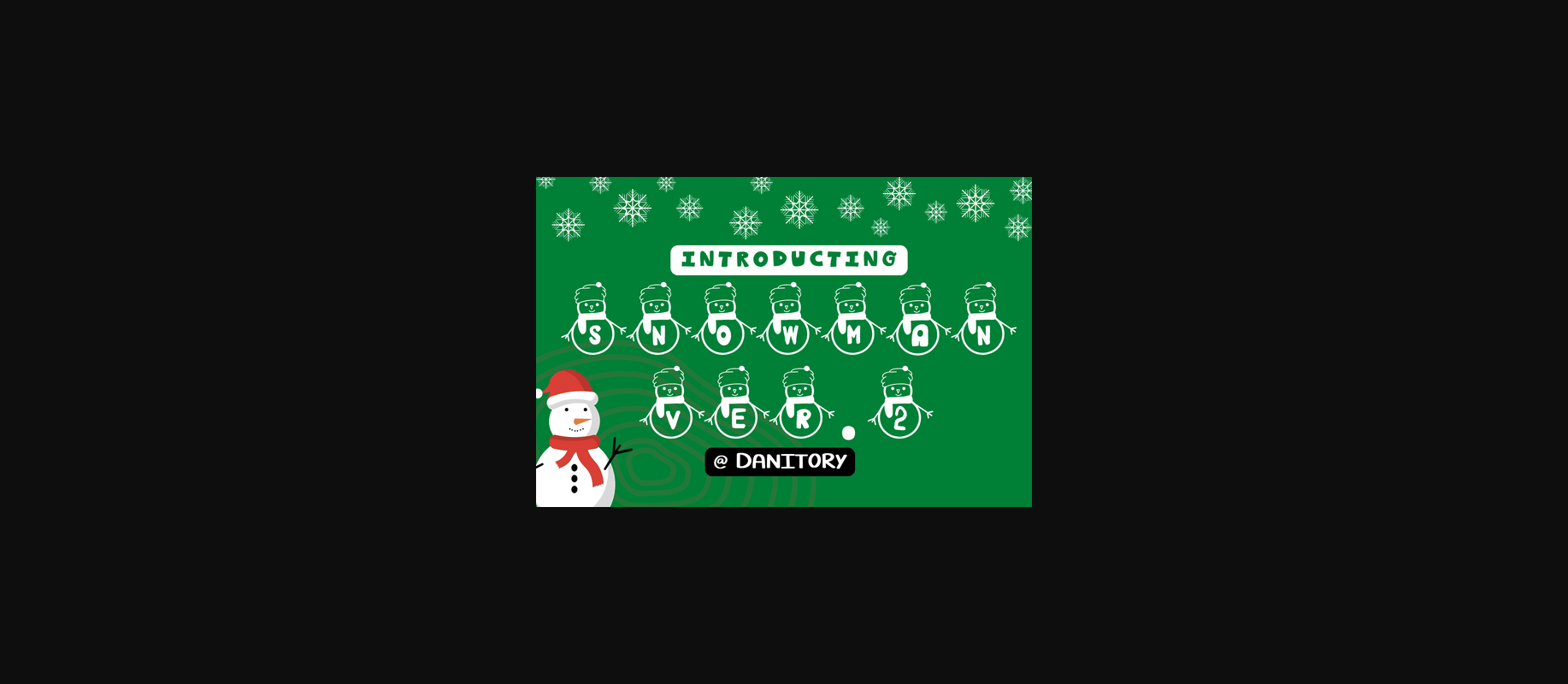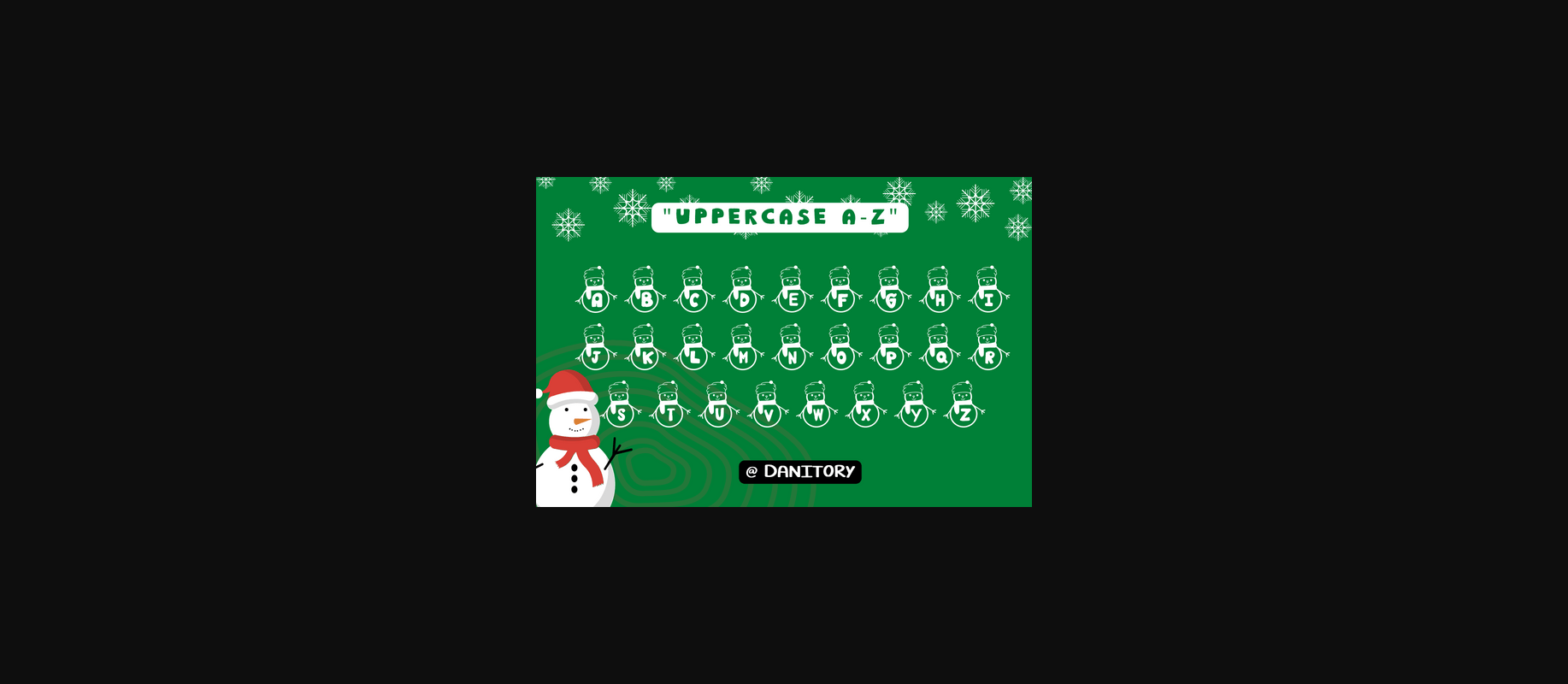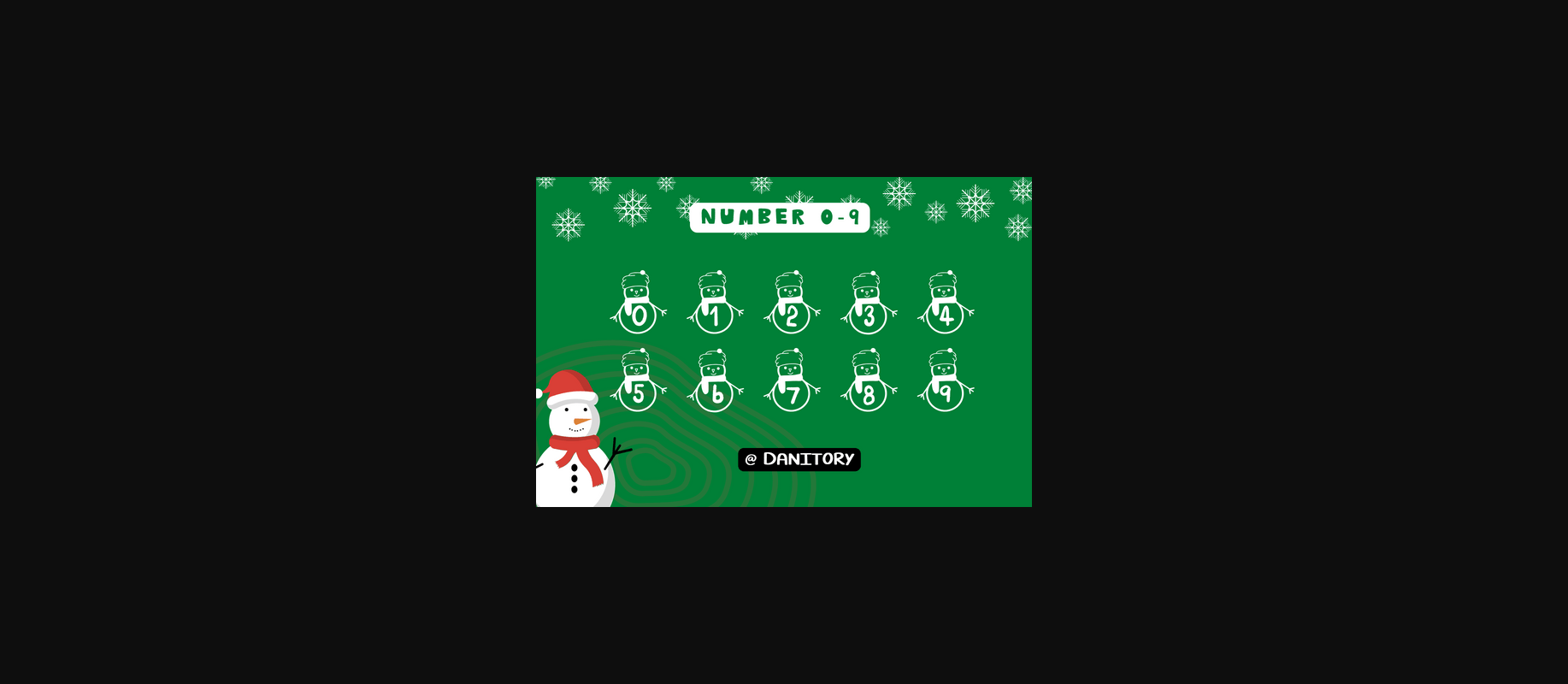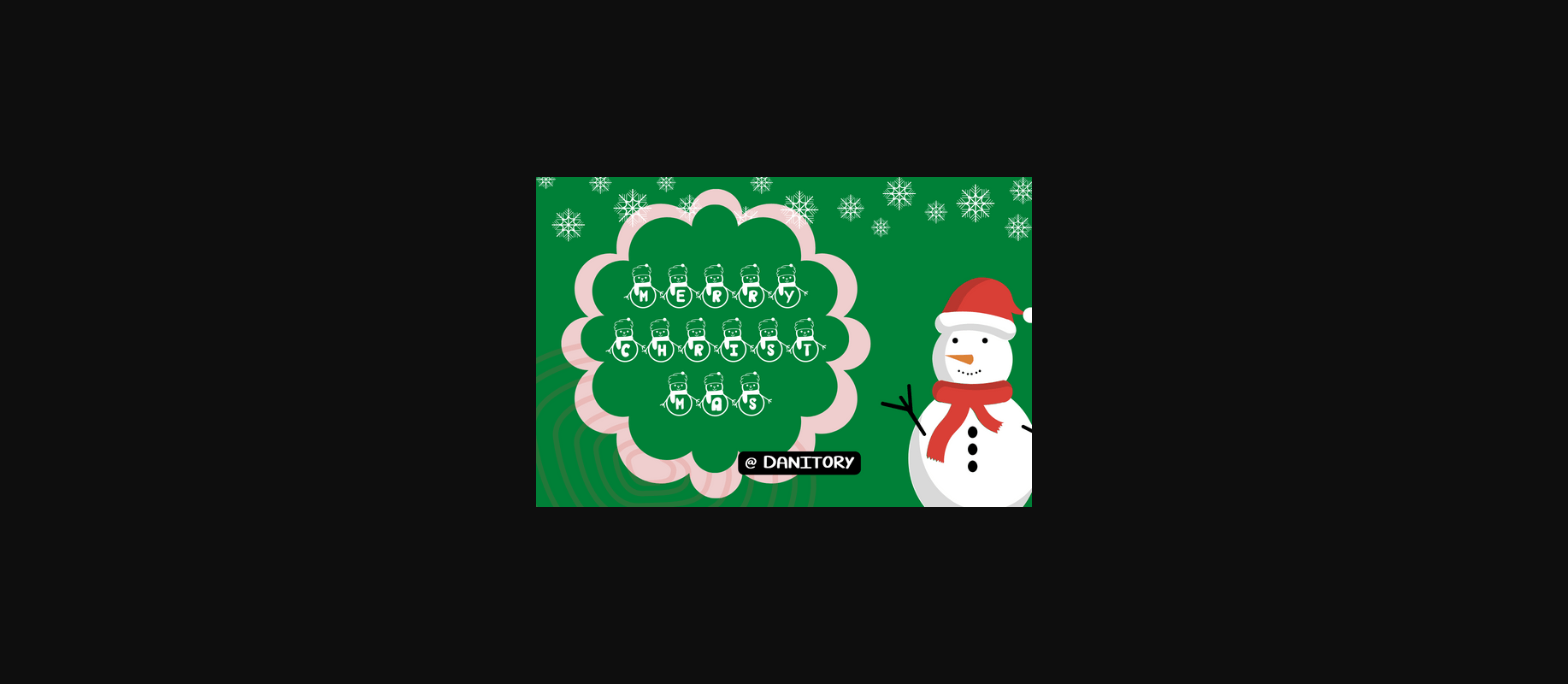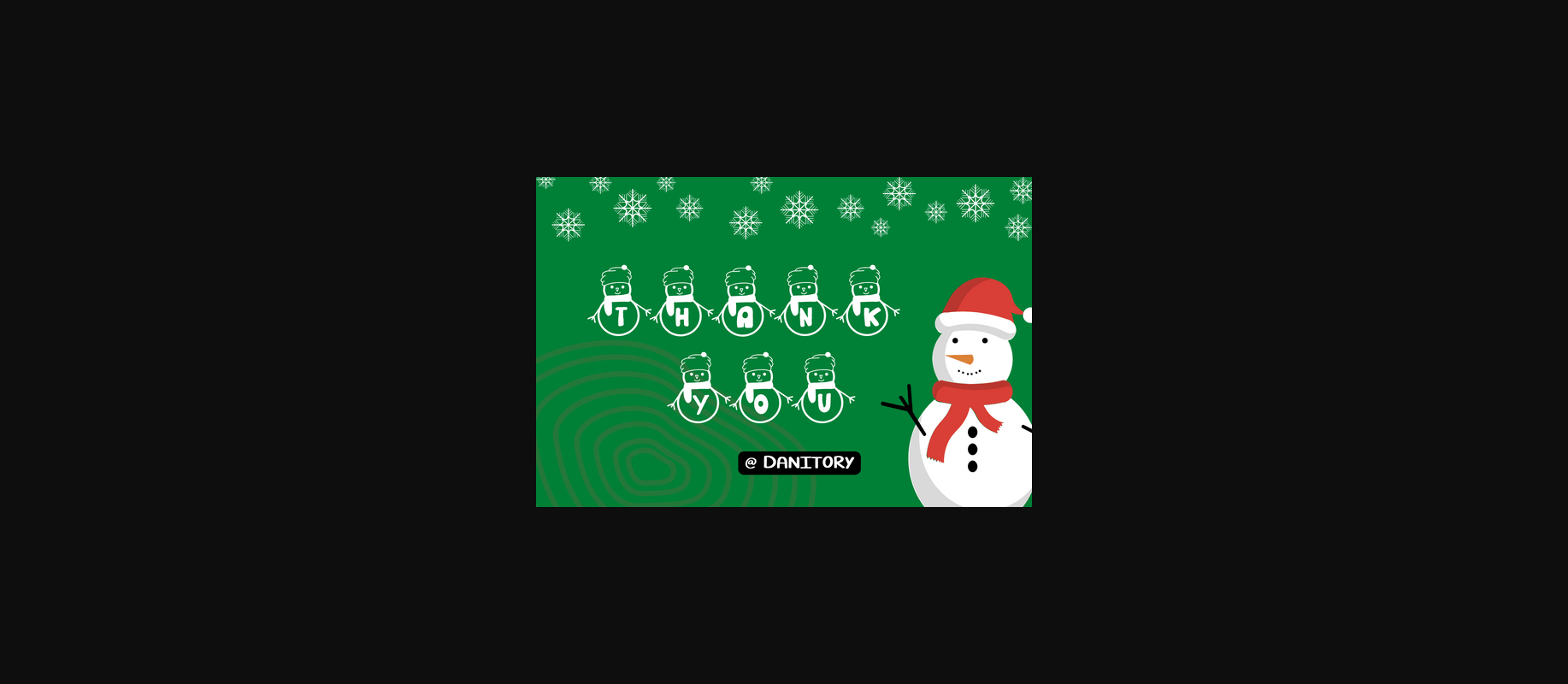
Snowman Version Two is a cute decorative font designed for the upcoming Christmas season. Add it to your festive crafty ideas and you will be amazed by the results!